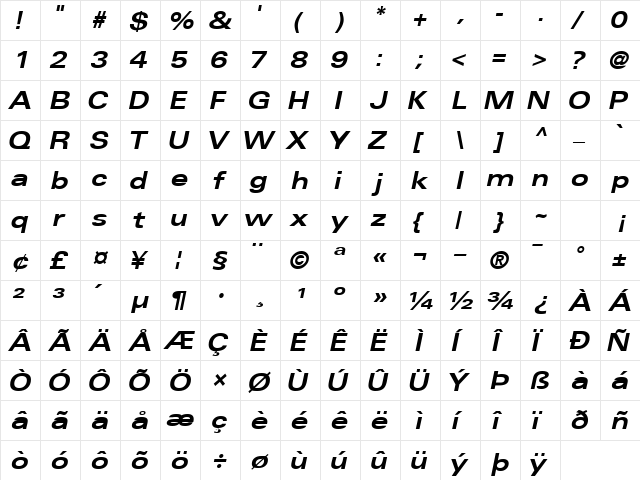
NovaExpandedSSK BoldItalic Font Preview
NovaExpandedSSK BoldItalic
Design Context for NovaExpandedSSK Typeface
NovaExpandedSSK offers clean, dependable letterforms without strong stylistic allegiance, making it a practical choice for designers who need flexibility. Its italic angle brings a sense of urgency and motion to the letterforms. Its bold stroke weight gives it real presence on the page.